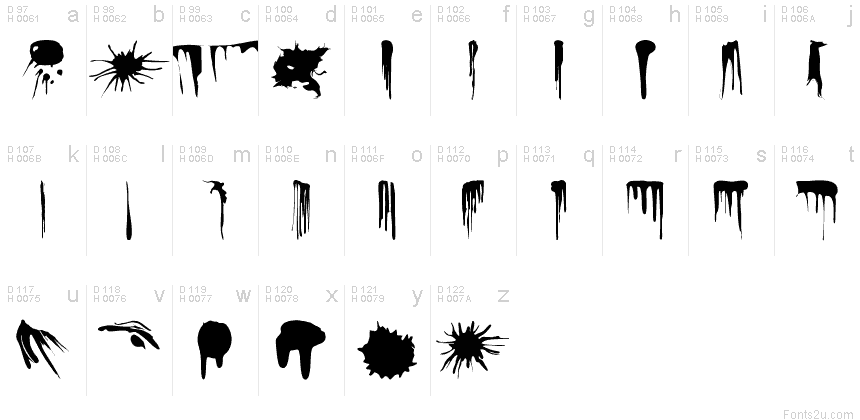
RVD Splats N Drips from WC Fonts of Rich.vom.Dorf. is a free horror dingbat font built from hanging trails and irregular splashes. Its shapes resemble wet paint or dark liquid running down a surface. The narrow drips end in sharp, uneven points.
As a ready-made dripping border or graphic texture, it can turn posters, album covers, and Halloween event materials into part of the artwork rather than ordinary lettering. The same liquid motif also suits game graphics and merchandise centered on monsters, gore, haunted attractions, or messy street-art themes.